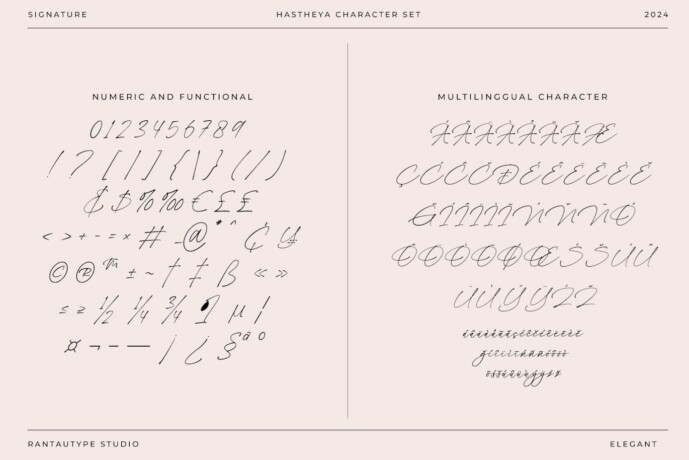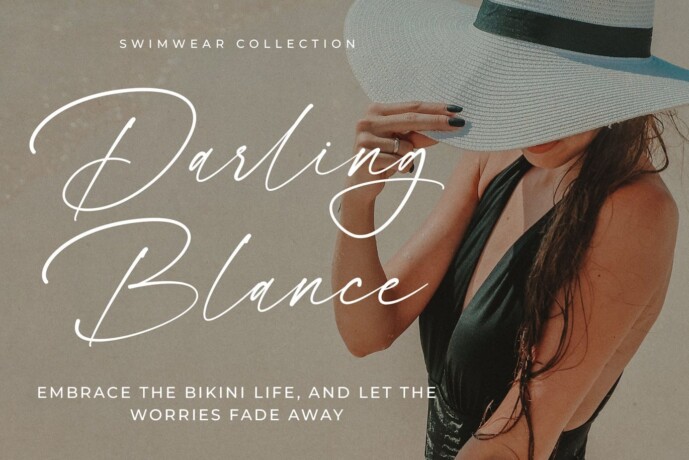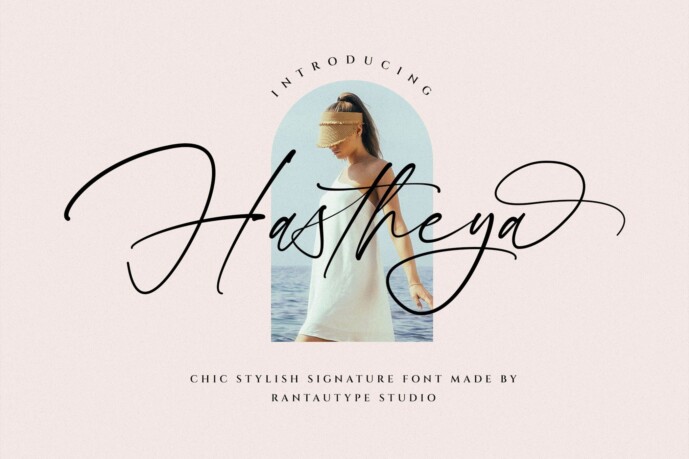
Hastheya Font
Hastheya Font is a classy font with an elegant Flow hand sign. Hastheya features a modern style inspired by branded fashion. We give this font a modern, trendy, classy, ​​stylish and eye-catching look.
Hastheya is a perfect choice for any creative, chic and lifestyle design such as logos, headline, watermark on photography, cover, branding, display and magazine, wedding event, corporate branding, quotes, album cover, business card, commercial project, corporate branding and other projects with handwritten taste.